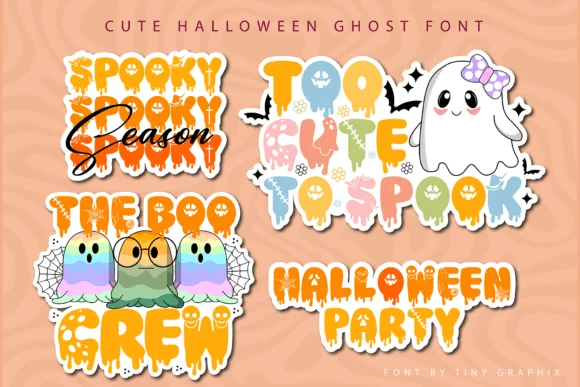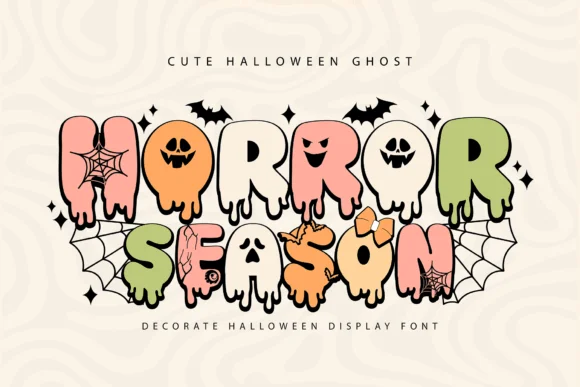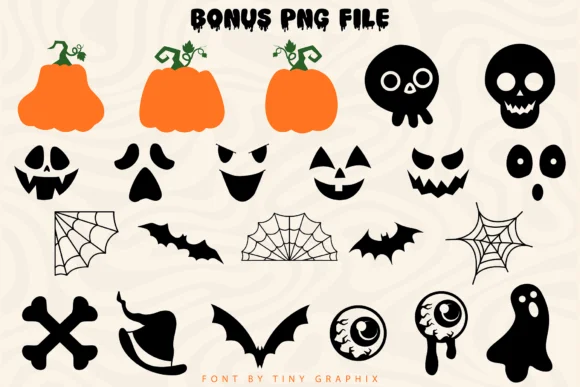
Cute Halloween Ghost Font
This adorable font is perfect for children's Halloween parties, friendly ghost decorations, cute Halloween invitations, kid-friendly spooky events, playful Halloween crafts, sweet ghost celebrations, charming Halloween marketing, gentle spooky branding, family-friendly Halloween displays, and delightfully cute Halloween messaging materials.
Cute Halloween Ghost Font is exciting because it transforms the traditionally frightening image of ghosts into adorable and friendly spirits through its charmingly crafted letterforms that capture the sweet innocence and playful charm of Halloween celebrations designed for children and families. The font features rounded, friendly characters with ghostly proportions and endearing details that evoke the delightful charm of cartoon spirits who are more interested in making friends than causing frights, incorporating gentle floating flourishes and sweet ghostly elements that create typography as lovable and huggable as a plush ghost toy. Each letter showcases the perfect balance between Halloween spirit and innocent charm that makes cute ghost themes so beloved by children and parents alike, with soft curves and friendly accents that transform ordinary text into expressions of gentle Halloween magic that prove ghosts can be both supernatural and absolutely adorable at the same time.
The Cute Halloween Ghost Font family includes sweetly spooky variations: Regular, Bold, Light, Friendly, and Adorable versions. The collection features special ghost elements including floating accents, gentle swirls, sweet flourishes, and lovable ornaments. Additional components include cute borders, friendly frames, sweet decorations, and adorably spooky ornamental designs that enhance the font's cute Halloween ghost appeal and create cohesive family-friendly Halloween themes.
Children's party planners and family-oriented celebrants will find Cute Halloween Ghost Font to be an invaluable resource for creating delightfully sweet Halloween communications that celebrate the gentle, family-friendly side of Halloween without sacrificing the magical spirit that makes the holiday so special. This adorably crafted font transforms ordinary Halloween messaging into cute expressions that resonate with families who want to enjoy Halloween's magic while keeping celebrations age-appropriate and sweetly spooky rather than genuinely frightening.
The typeface includes comprehensive character support with friendly styling that maintains excellent readability while conveying the sweet charm and gentle spookiness of cute Halloween ghost celebrations. The font's adorable design ensures delightfully sweet results across both children's applications and family-friendly Halloween productions.
Perfect for children's parties, family Halloween events, cute seasonal celebrations, and sweetly spooky marketing, this font delivers adorably charming visual impact that communicates gentle magic, sweet spookiness, and the delightful truth that Halloween can be both supernatural and absolutely adorable for families seeking cute and friendly Halloween fun.